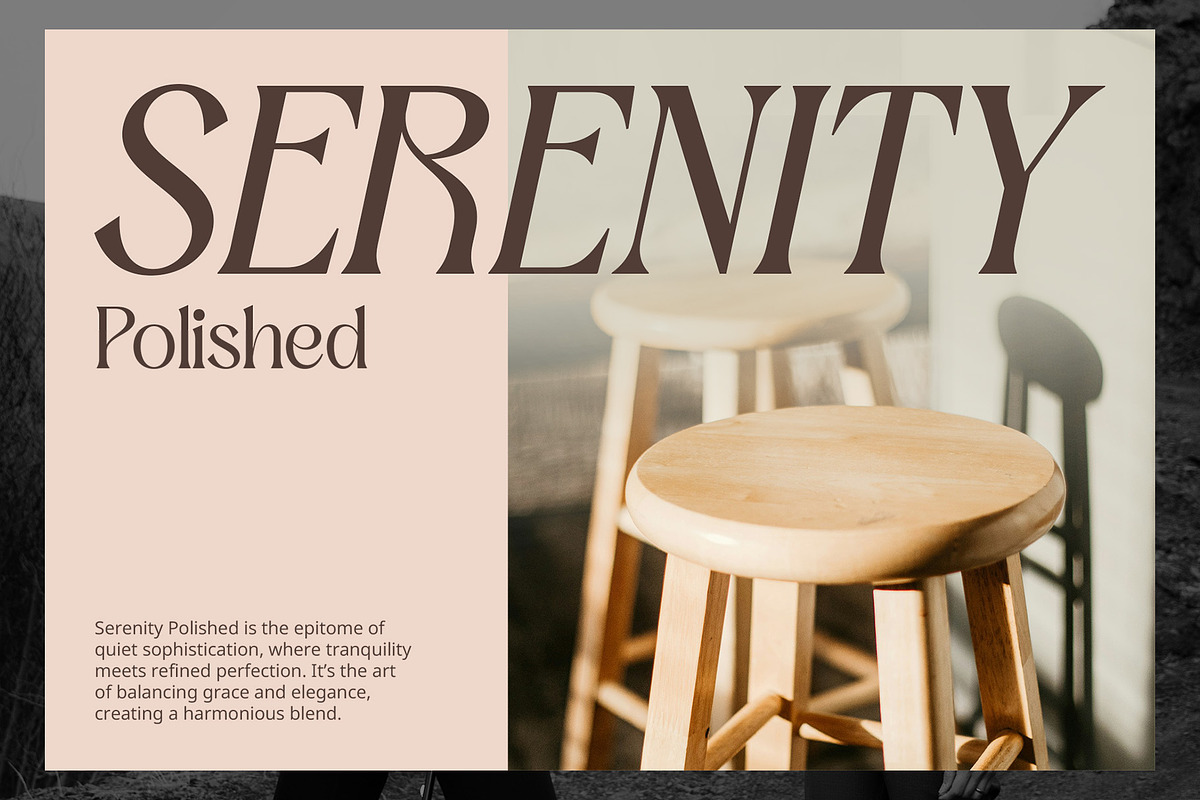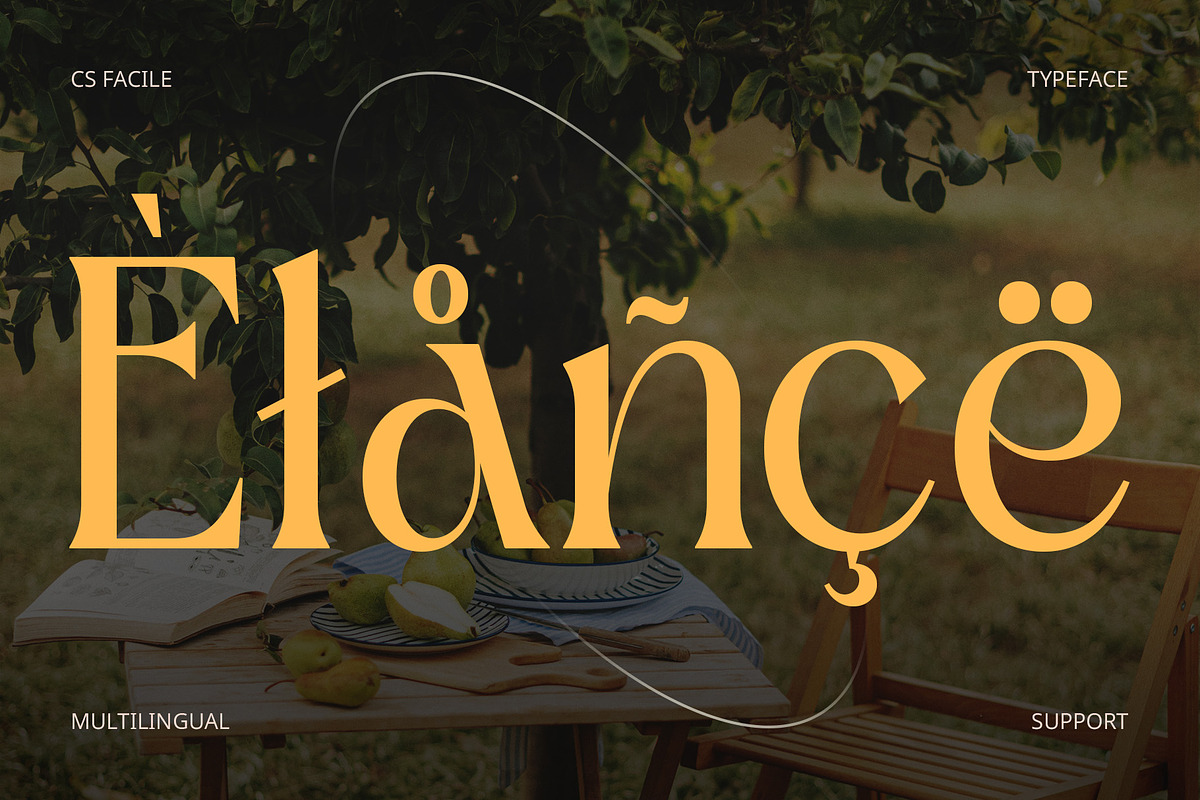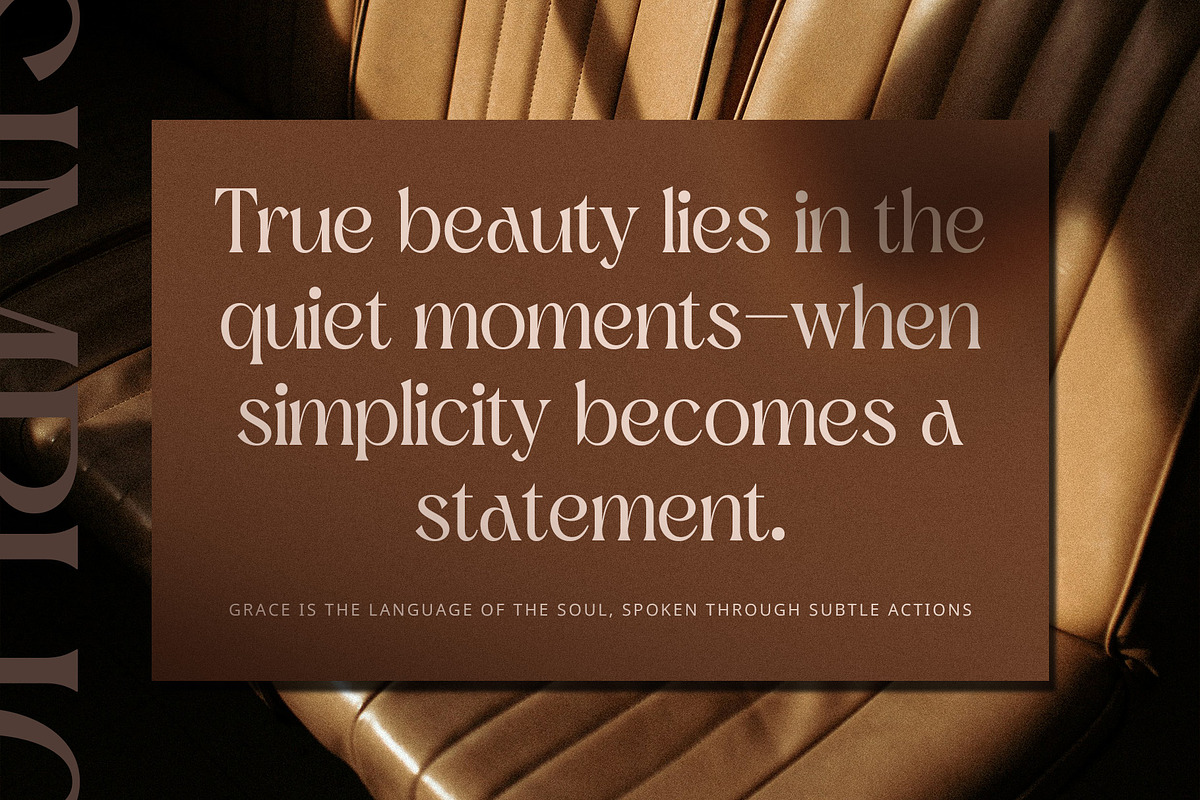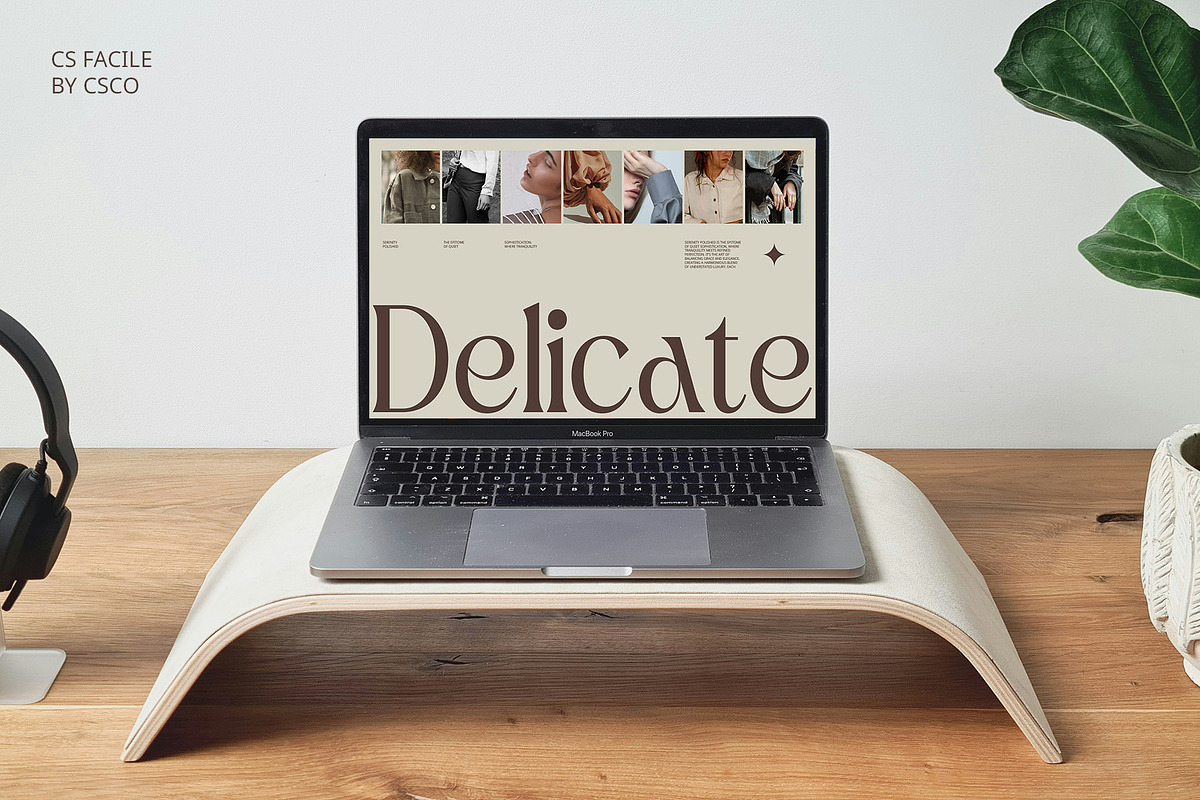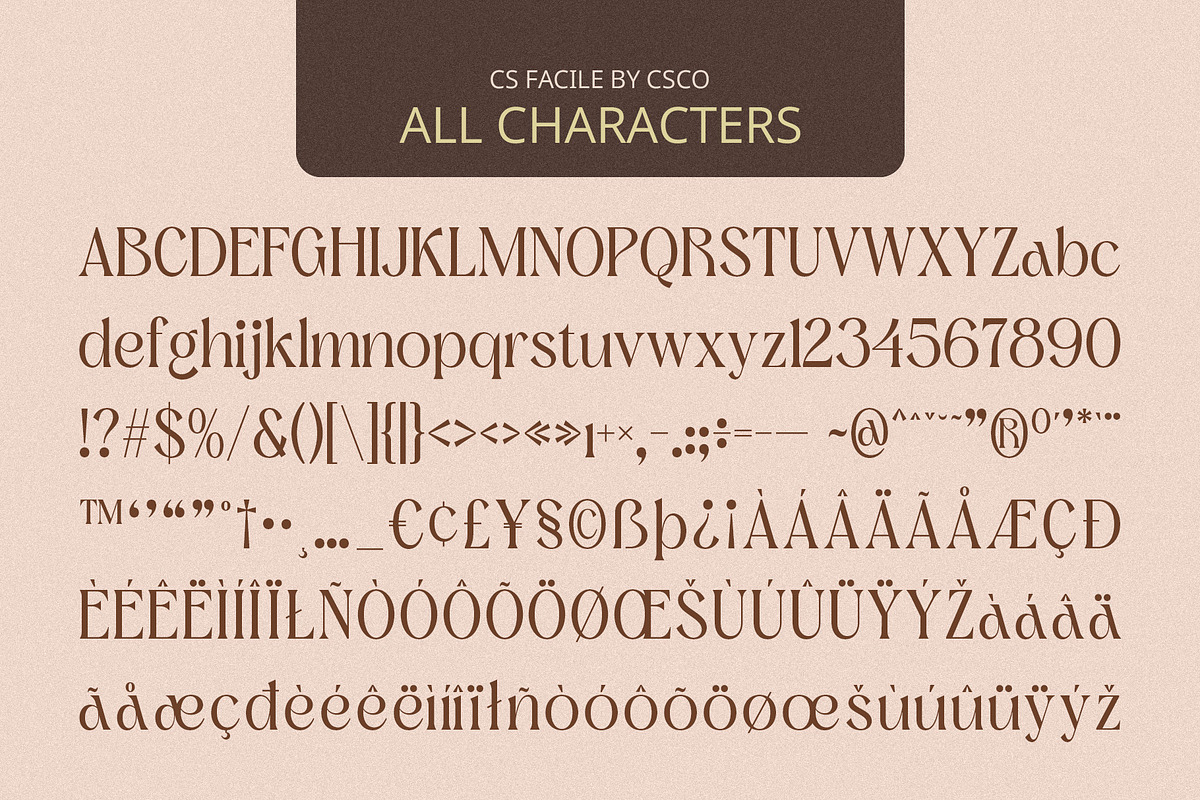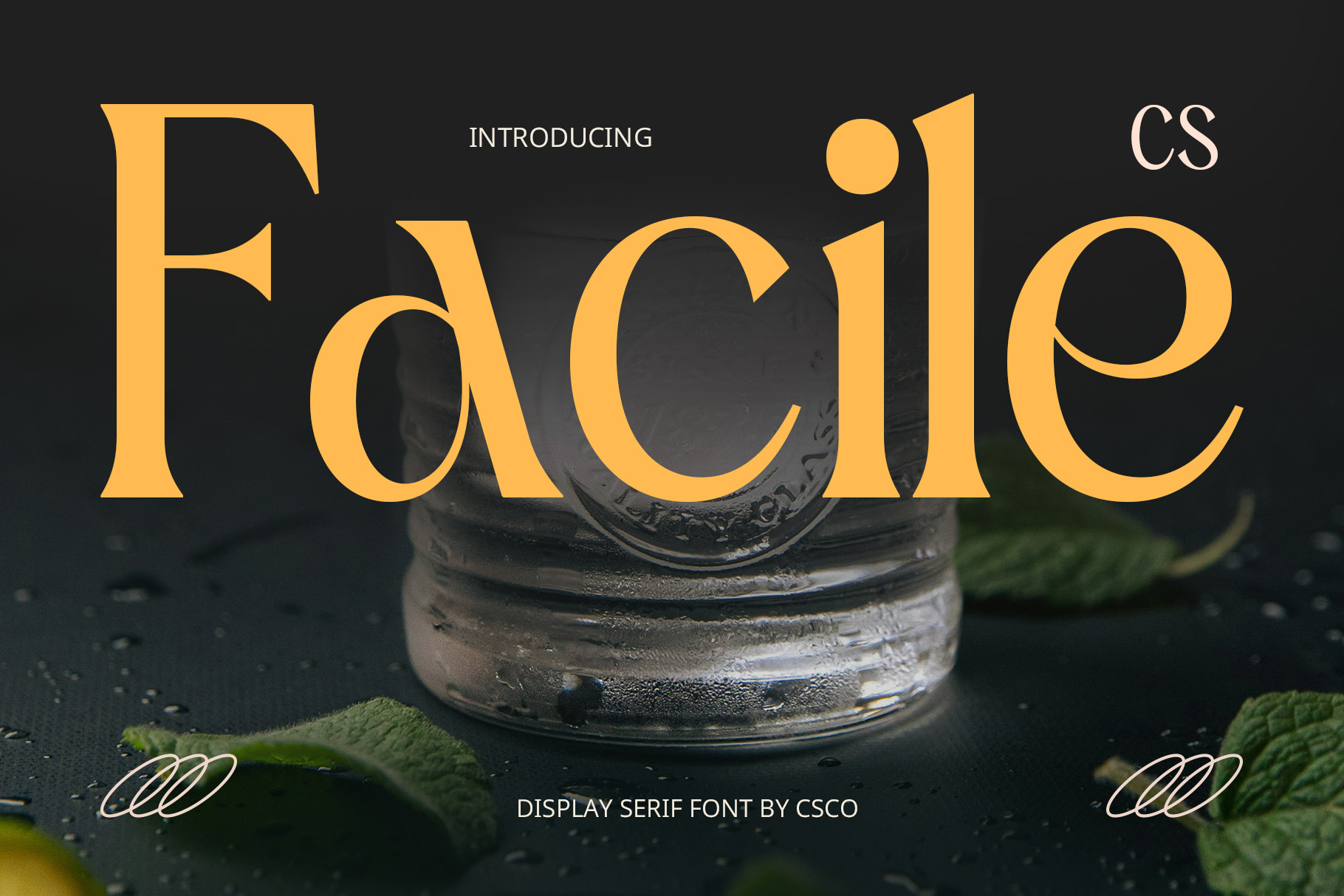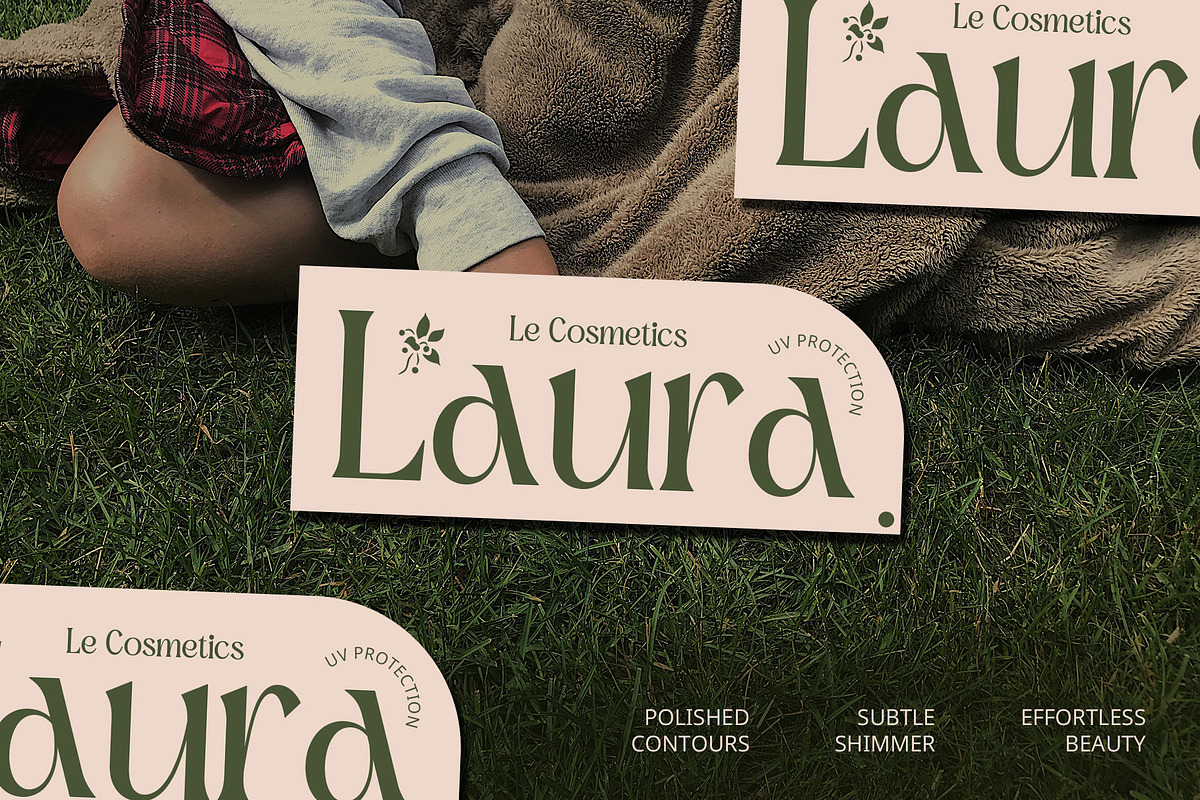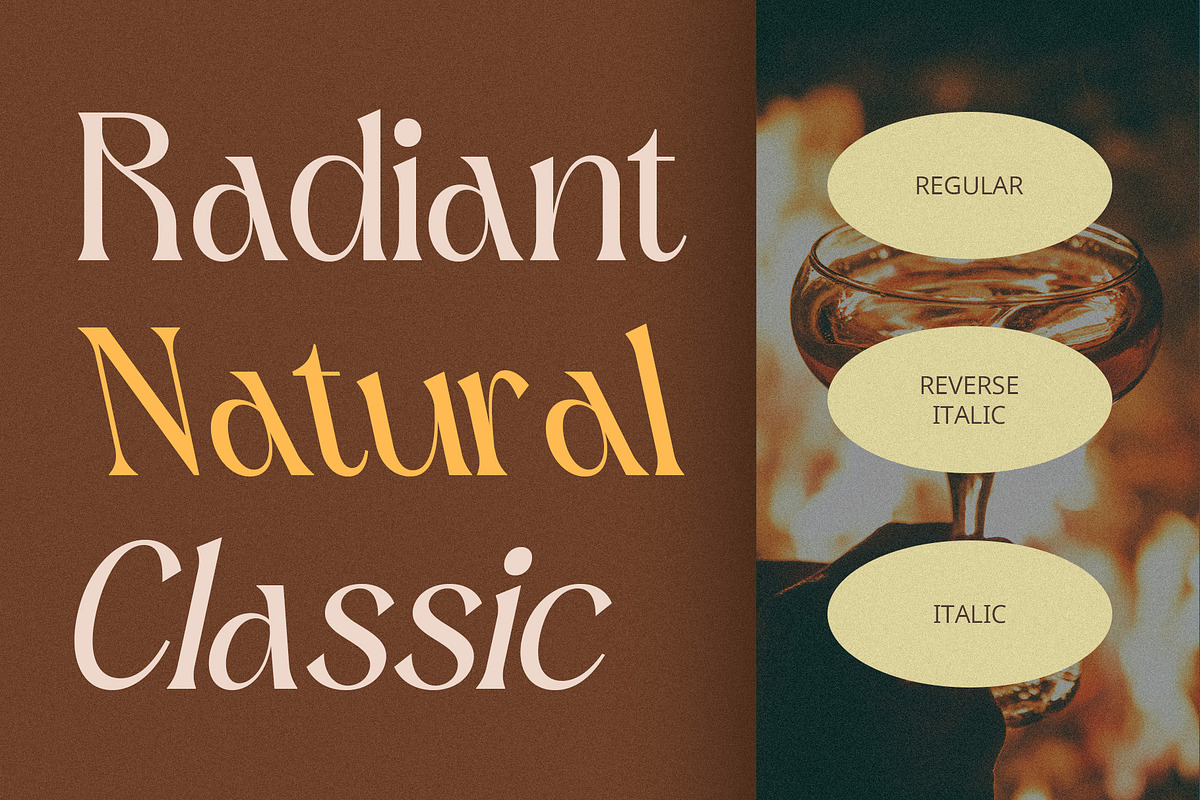
CS Facile – Elegant Font
CS Facile – Elegant Font: Refined Simplicity for High-End Designs
Modern Serif Display Font CS Facile is a modern serif display font that embodies the perfect balance between sophistication and simplicity. Its minimalist design, refined serifs, and balanced structure create a timeless aesthetic, ensuring that your designs exude both luxury and professionalism. Ideal for high-end projects, CS Facile delivers an aura of elegance that resonates with sophistication in any context.
Minimalist and Clean Design Designed with a minimalist approach, CS Facile boasts a sleek, balanced structure that elevates any project. The subtle curves and sharp edges give the font a modern feel while maintaining the classic beauty of a serif typeface, making it ideal for high-end branding and editorial work.
Timeless Elegance and Luxury With its understated elegance, CS Facile exudes luxury and professionalism. The font’s refined design is perfect for conveying a sense of sophistication in premium projects such as business cards, luxury branding, or high-end publications, adding an air of exclusivity to any design.
Perfect for Professional Applications CS Facile’s readability, combined with its graceful design, makes it a great fit for a wide range of professional applications. Whether you’re working on editorial layouts, corporate materials, or elegant marketing campaigns, this font ensures that your designs exude refinement and class.
- CS Facile Regular
- CS Facile Italic
- CS Facile Reverse Italic